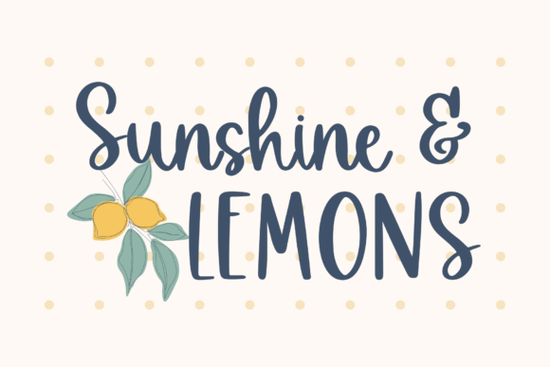
If you’re looking for a friendly, hand-drawn script font that works well for Cricut projects, printable cards, or small business branding Sunshine & Lemons Font is a thoughtful choice. It’s designed with gentle curves and uneven baseline variation to mimic real handwriting, giving your work warmth without looking overly polished or stiff. That makes it especially useful if you’re crafting farmhouse-style invitations, lemonade stand signs, or seasonal greeting cards where authenticity matters more than perfection.
What kind of projects does Sunshine & Lemons work best for?
This font shines in low-pressure, high-personality contexts: think baby shower banners, chalkboard-style café menus, DIY wall art, or even custom stickers for your Etsy shop. Because it’s built as a true handwritten script not a formal calligraphy style it pairs naturally with rustic textures, kraft paper backgrounds, and soft watercolor elements. You’ll also find it holds up well at smaller sizes (like 14–18pt) in Goodnotes or Procreate journals, unlike some delicate scripts that blur or lose legibility.
How does it compare to other popular script fonts?
Unlike bolder, more structured options like Rainbow Candy Font, which leans into playful bounce and exaggerated swashes, Sunshine & Lemons keeps things grounded and approachable. It’s closer in spirit to Family Holiday Font warm and familiar but with lighter weight and more open spacing, making it easier to layer over photos or busy backgrounds.
If you’ve used Norelia Daily Font before, you’ll notice Sunshine & Lemons has slightly less contrast between thick and thin strokes so it feels softer, more relaxed. And while Reflect Handwritten Font offers more dramatic flourishes, this one stays focused on readability and ease of use across formats.
Who’s using it and why?
We’ve seen small businesses use Sunshine & Lemons Font for product labels on artisanal soaps and honey jars, where the handwritten feel reinforces “handmade” credibility. Teachers print it on classroom reward certificates. Crafters pair it with floral clipart for printable planners. Even wedding stationery designers choose it for “details” pages like schedule cards or menu inserts where formality isn’t the goal, but charm is.
It’s not meant to replace a versatile sans-serif for body text or headlines, but rather to add personality where it counts: names, short phrases, quotes, or decorative accents. Think of it like a well-chosen accent pillow not something you lean on all day, but something that makes the whole space feel more yours.
- Try pairing it with a simple, clean sans-serif (like Montserrat or Poppins) for contrast especially in multi-line layouts.
- In Procreate, set the layer blend mode to “Multiply” if placing over textured backgrounds it helps preserve subtle stroke variations.
If you already own Rainbow Candy Font or Family Holiday Font, consider how Sunshine & Lemons fills a different niche: quieter, gentler, and more versatile across seasons. It’s not just for summer it works just as well on cozy fall tags or spring garden party invites.